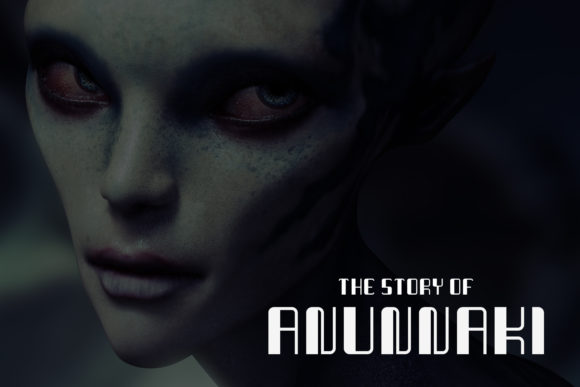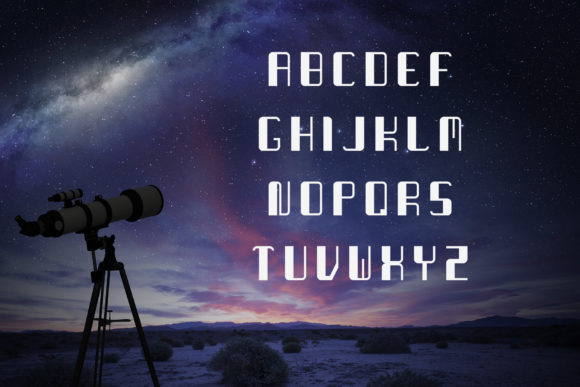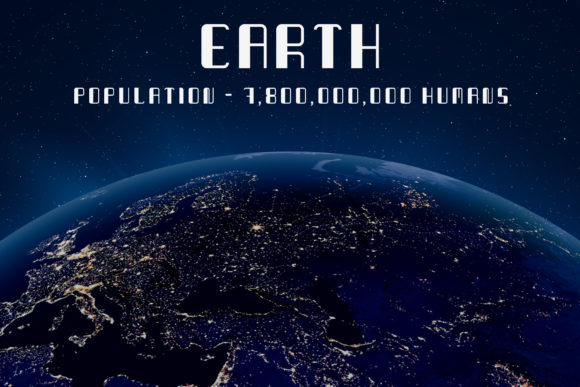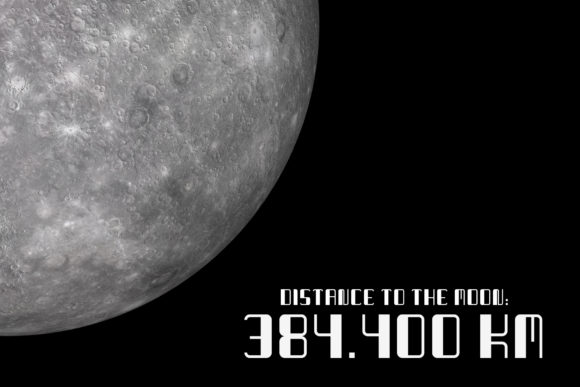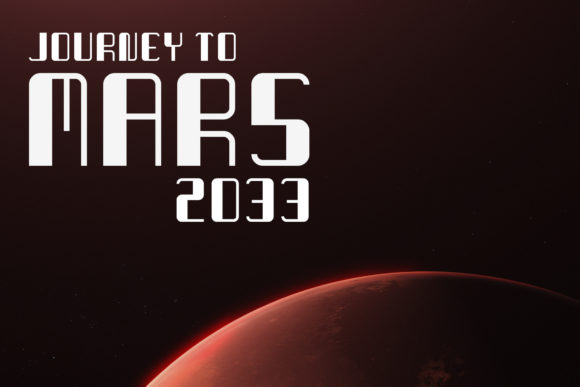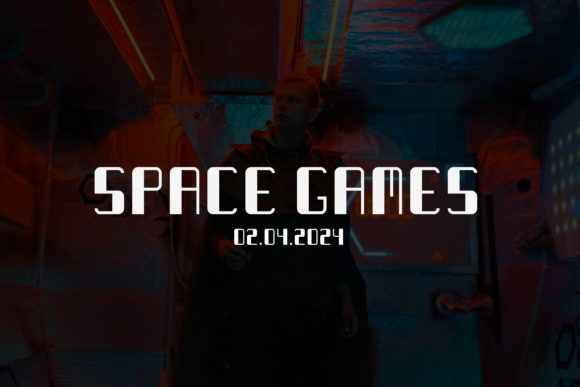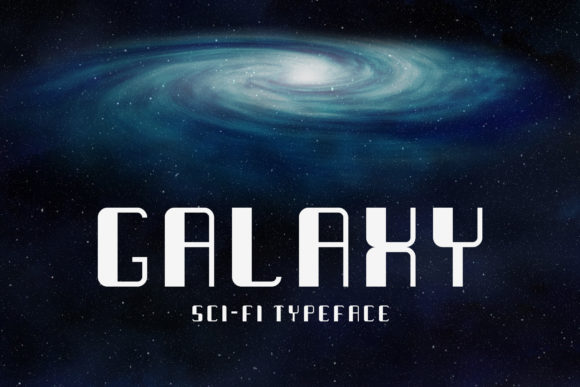
Introducing Galaxy Font: Elevate Your Designs with a Unique Display Typeface
Are you tired of using the same old fonts in your designs? Look no further than the Galaxy Font, a stunning display typeface that’s out of this world. With its modular, geometric, and slightly condensed design, Galaxy Font is perfect for creating spectacular designs that demand attention.
What is Galaxy Font?
Galaxy Font is a unique display font that looks modular, geometric, and slightly condensed. It was conceived primarily as a display typeface, making it ideal for headlines, titles, and other attention-grabbing elements in your designs. The font’s sleek and modern design ensures that your text stands out, whether you’re creating a logo, poster, or social media graphic.
Key Features of Galaxy Font
- Modular design: Galaxy Font features a modular design that gives it a futuristic and cutting-edge look.
- Geometric shapes: The font’s geometric shapes add a touch of sophistication and elegance to your designs.
- Slightly condensed: The font’s slightly condensed design makes it perfect for creating compact and impactful text.
- Highly legible: Despite its unique design, Galaxy Font is highly legible, even at small sizes.
Why Use Galaxy Font?
There are many reasons why you should consider using Galaxy Font in your designs. Here are just a few:
- Stand out from the crowd: With its unique design, Galaxy Font is sure to make your text stand out from the crowd.
- Perfect for display text: The font’s design makes it perfect for display text, such as headlines, titles, and captions.
- Versatile: Galaxy Font can be used in a wide range of design applications, from logos and posters to social media graphics and presentations.
- Easily customizable: The font is easily customizable, allowing you to adjust the size, color, and style to suit your design needs.
Tips for Using Galaxy Font
Here are some tips for getting the most out of Galaxy Font:
- Use it sparingly: Because of its bold design, Galaxy Font is best used sparingly. Use it for headlines and titles, and a more straightforward font for body text.
- Experiment with colors: Galaxy Font looks great in a wide range of colors. Experiment with different colors to find the one that works best for your design.
- Pair it with other fonts: Galaxy Font can be paired with other fonts to create a unique and visually appealing design.
Who Can Benefit from Galaxy Font?
Galaxy Font is perfect for a wide range of designers and crafters, including:
- Graphic designers: Galaxy Font is a great addition to any graphic designer’s toolkit.
- Log designers: The font’s unique design makes it perfect for creating logos that stand out.
- Social media managers: Galaxy Font can be used to create eye-catching social media graphics.
- Crafters: The font’s design makes it perfect for creating handmade cards, gift tags, and other craft projects.
Galaxy Font is a unique and versatile display typeface that’s perfect for creating spectacular designs. With its modular, geometric, and slightly condensed design, it’s sure to make your text stand out. Whether you’re a graphic designer, log designer, social media manager, or crafter, Galaxy Font is a great addition to your toolkit. So why not give it a try and see the difference it can make in your designs?